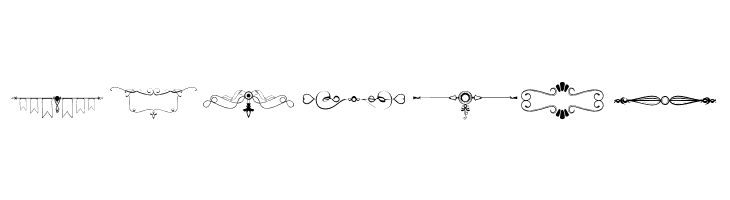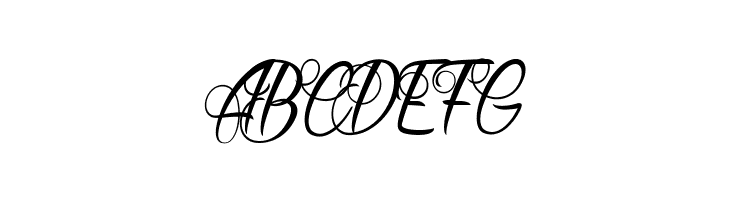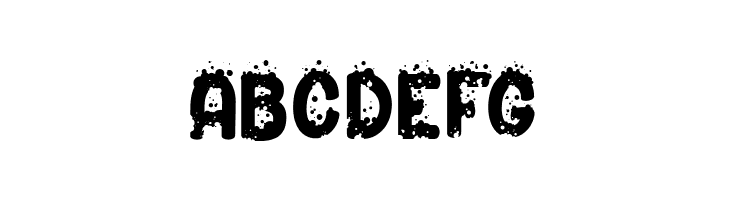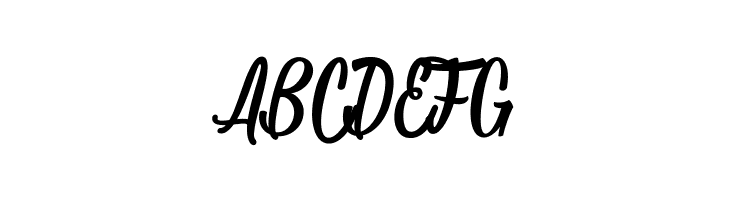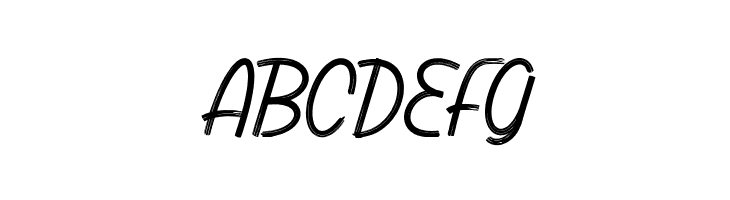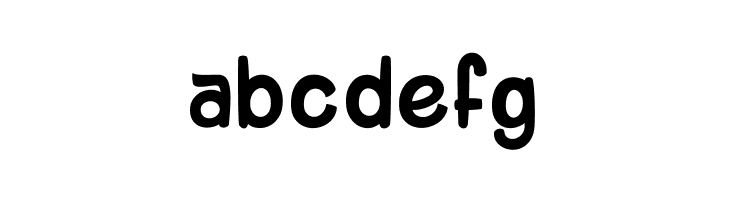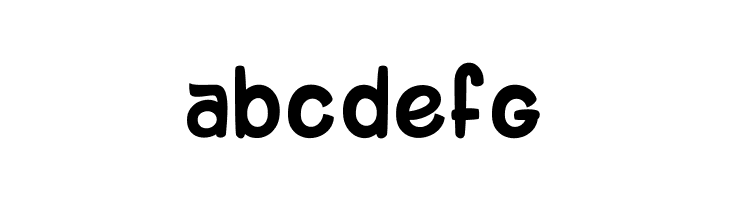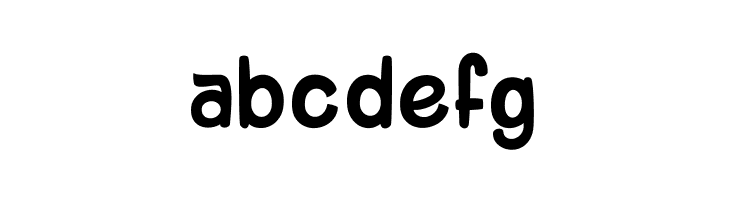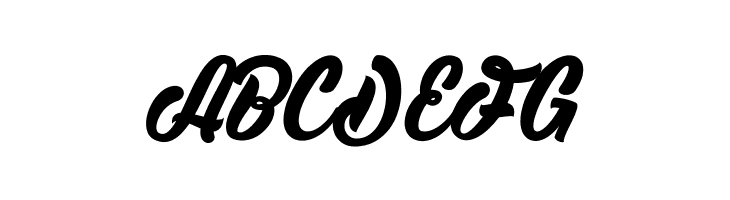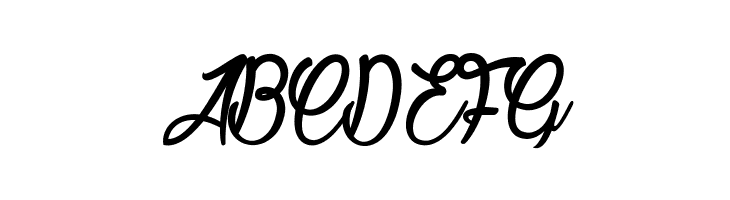
Ornate decorative elements and flourishes in a hand-drawn style.
An elegant and flowing script font with intricate loops and flourishes.
A bold, distressed font with a grunge, textured style.
A dynamic and flowing script font with elegant, cursive letterforms.
A bold, expressive script font with flowing cursive letterforms.
A bold, brush-style font with expressive, hand-drawn strokes.
A bold, brush-style script font with dynamic curves and elegant flourishes.
A playful, rounded font with a bold and friendly appearance.
A bold, rounded, and playful font with a friendly and whimsical style.
A playful, rounded font with a bold and friendly appearance.
A flowing, elegant script font with bold, cursive strokes.
A bold, cursive font with smooth, flowing lines and a dynamic, elegant style.
A bold, cursive font with smooth, flowing lines and a modern yet classic feel.
A decorative cursive font with elegant loops and a handwritten style.
A playful, hand-drawn font with bold, rounded characters.
A playful, bold font with rounded, whimsical letterforms.
A bold, playful font with rounded edges and a friendly appearance.
A playful, bold font with rounded, bubble-like characters.
A flowing, cursive script font with elegant, connected strokes.
A bold, playful script font with smooth, flowing curves.
A bold, playful font with a hand-drawn, energetic style.
A playful, alien-themed font with cartoon-style illustrations.
An elegant script font with decorative swashes and flowing cursive style.
A playful, hand-drawn font with tall, narrow letters and a whimsical style.
A bold, dynamic script font with interconnected characters and a strong presence.
A bold, cursive font with an elegant, handwritten style.
A bold, textured script font with a vintage, handcrafted look.
A playful, flowing script font with a handwritten appearance.
A bold, playful font with rounded edges and a friendly appearance.
A dynamic and elegant script font with flowing, cursive letterforms.
An elegant script font with decorative swirls and flourishes.
A bold, playful font with rounded edges and a modern, approachable style.
A modern, striped decorative font with geometric structure and clear legibility.
A playful, bold font with rounded edges and consistent thickness.
A playful, rounded font with bold, smooth curves and a modern, whimsical style.